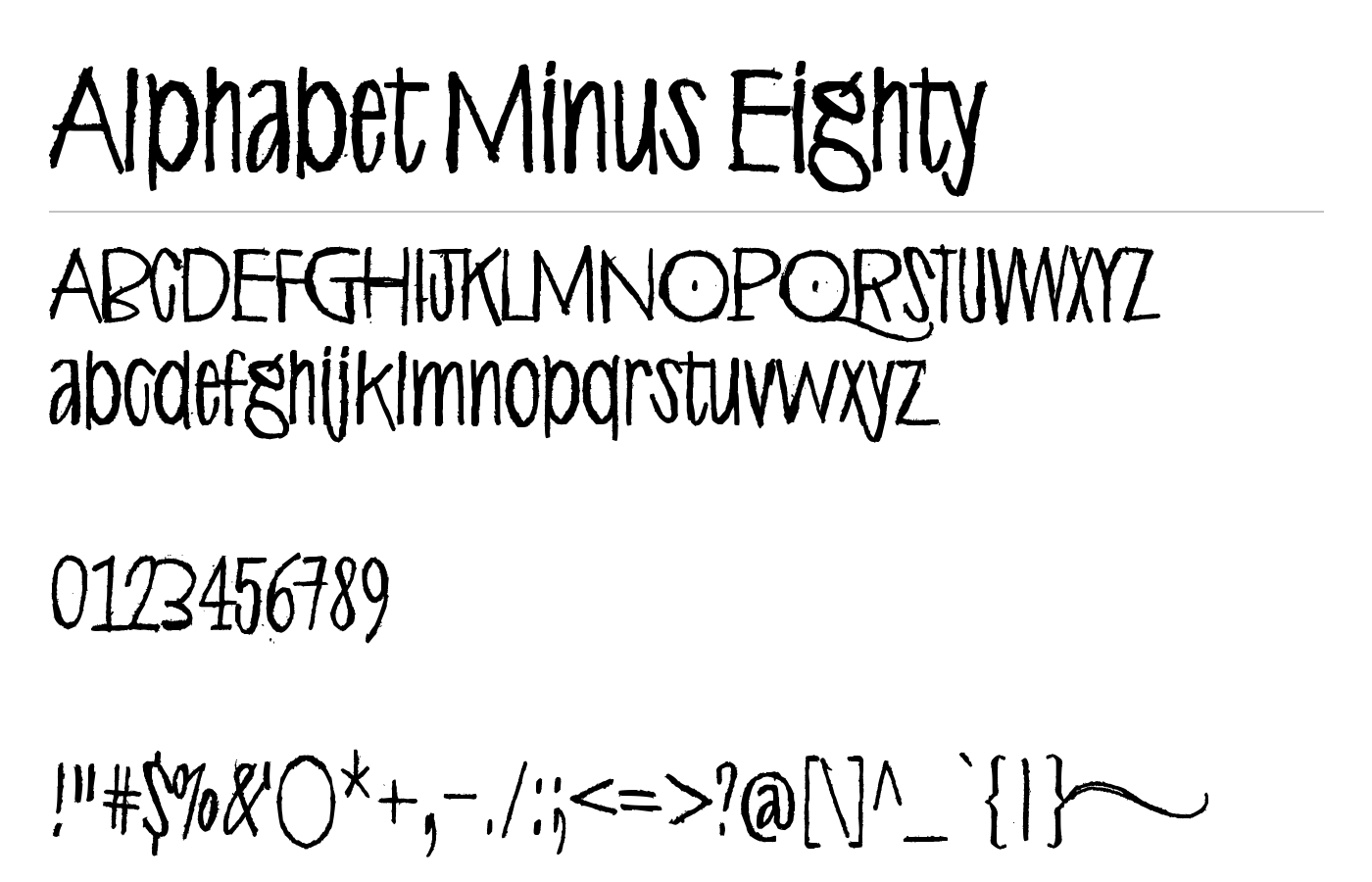
Alphabet Minus Eighty is a quirky, hand-drawn sans serif font with an uneven, textured stroke that gives it a playful and slightly eerie character. Its tall, narrow letterforms with whimsical details make it great for creative projects needing a unique, informal vibe, such as posters, logos, or Halloween-themed designs. This font’s distinct personality shines best in headlines or expressive display use where originality and a handmade feel are desired.
Alphabet Minus Eighty Font
About Alphabet Minus Eighty Font